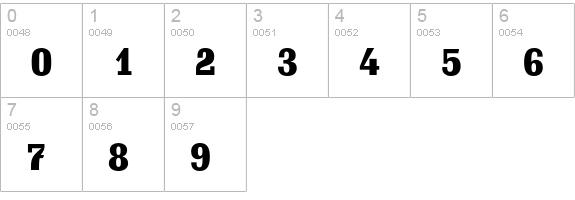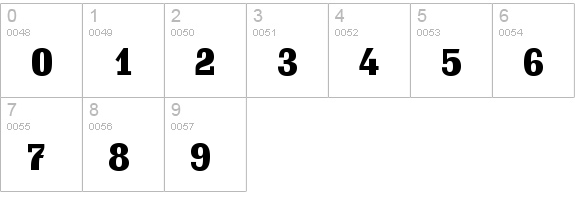
Schadow Black Font Details
Schadow Black is a maximum-weight, dramatic variant in the Schadow typeface family \xE2\x80\x94 well suited to maximum-impact headlines, posters, and packaging.
Schadow Black is a bold and commanding font that exudes confidence and sophistication. Its strong, thick strokes make a powerful statement, commanding attention and leaving a lasting impression. With its sleek and modern design, this font is perfect for headlines, logos, and any other design project that requires a bold and striking aesthetic. But what sets Schadow Black apart from other fonts is its accessibility. Unlike many premium fonts that come with a hefty price tag, Schadow Black is available for free. That's right, this exceptional font can be downloaded at no cost from FontsMarket.com, making it a valuable asset for designers, students, and anyone else in need of a high-quality font without breaking the bank. Whether you're working on a personal project or a professional design, Schadow Black offers versatility and style. From posters and advertisements to website headers and branding materials, this font will elevate your designs and make them stand out from the crowd. Its bold and authoritative presence will captivate your audience and convey a sense of confidence and professionalism. So why wait? Don't miss out on the opportunity to enhance your design work with Schadow Black. Download it for free today at FontsMarket.com and unlock endless possibilities for your creative endeavors.